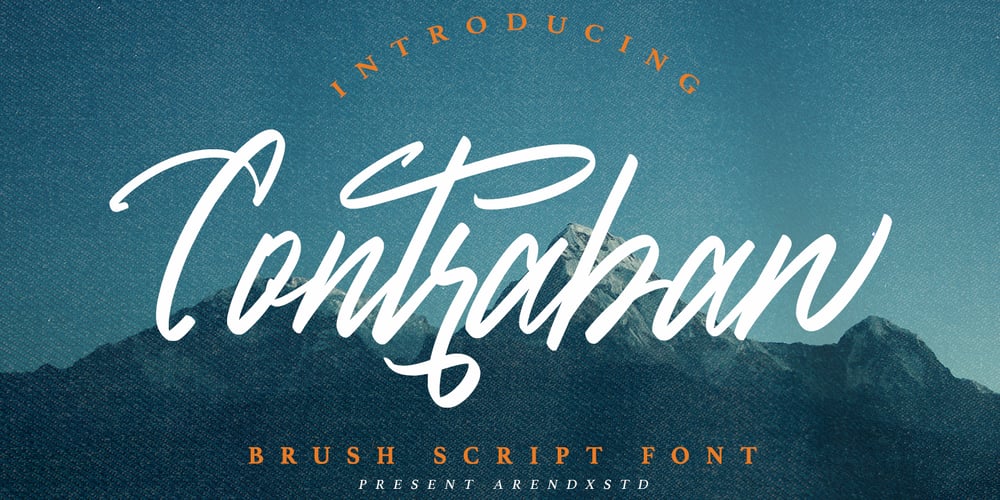
Contraban Font Family was designed by Asep Rendi and published by Arendxstudio. Contraban contains 1 styles and family package options. Introducing a Contraban Brush script fonts with sharp and beautiful letters that create fonts that are modern, tendy and elegant. Contraban came with opentype features such stylistic alternates, stylistic sets & ligatures good for logotype, poster, badge, book cover, tshirt design, packaging and any more.Features : • Character Set A-Z • Numerals & Punctuations (OpenType Standard) • Accents (Multilingual characters) • Ligature • Alternate